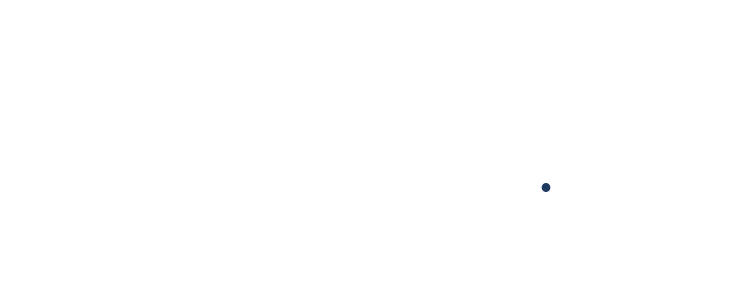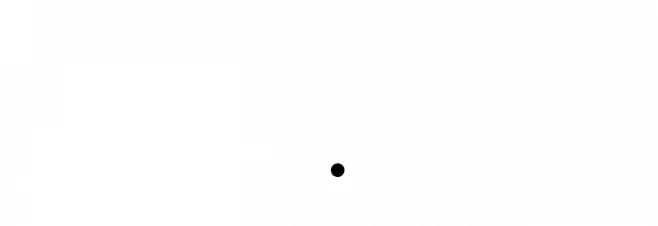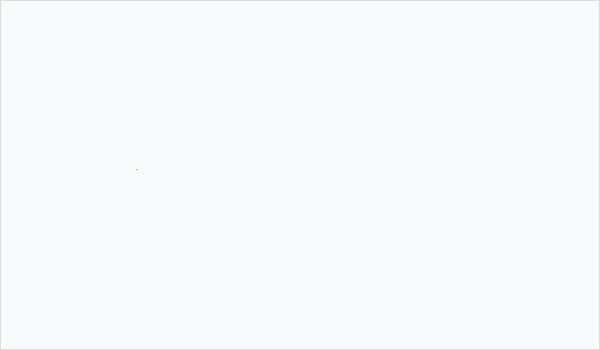
Ahuramzda Font
Ahuramzda Description
This font features a single, bold dot, representing minimalism and simplicity. It lacks any traditional alphabetic or numeric characters, focusing instead on a singular, impactful visual element. The design is stark and modern, emphasizing negative space and the power of a solitary symbol. This font is not intended for typical text use but rather for specific design purposes where a single point can convey meaning or serve as a design element.
| Use Case | Logos, Art installations, Minimalist designs |
| Proposed Projects | Ideal for abstract art projects, modern design elements, or branding that emphasizes minimalism. |